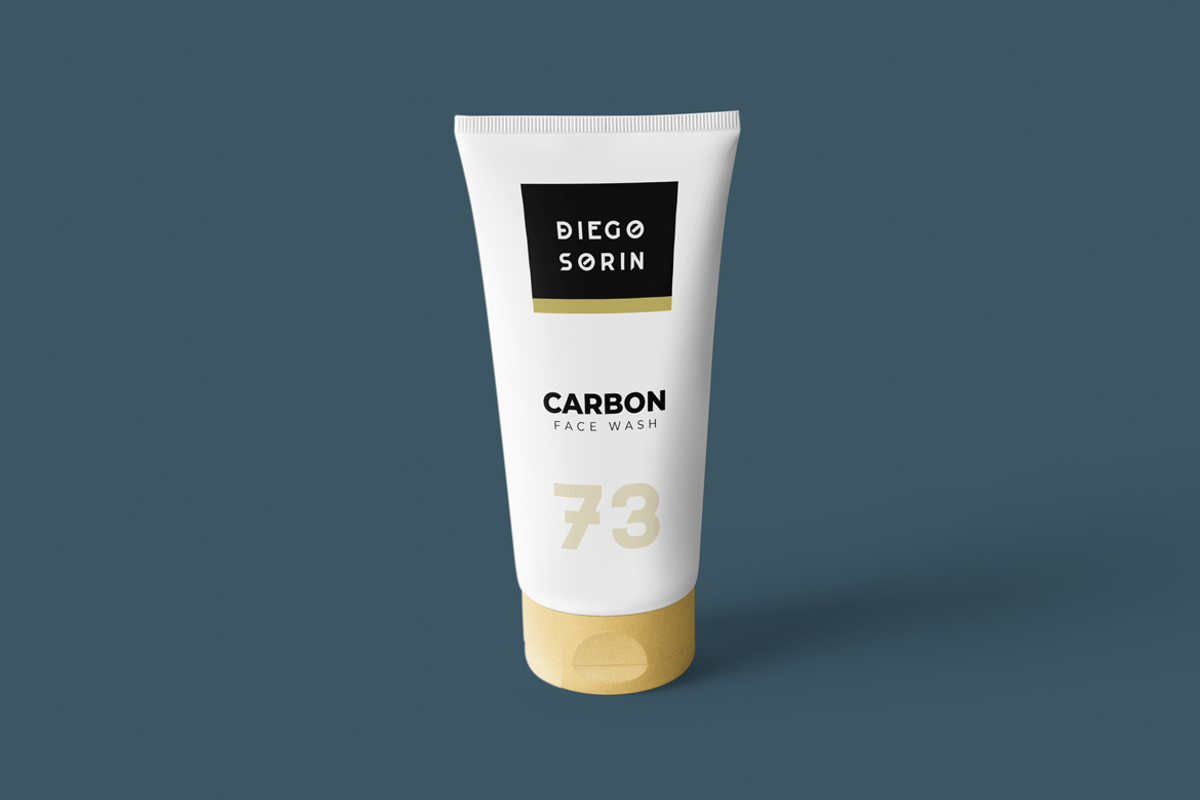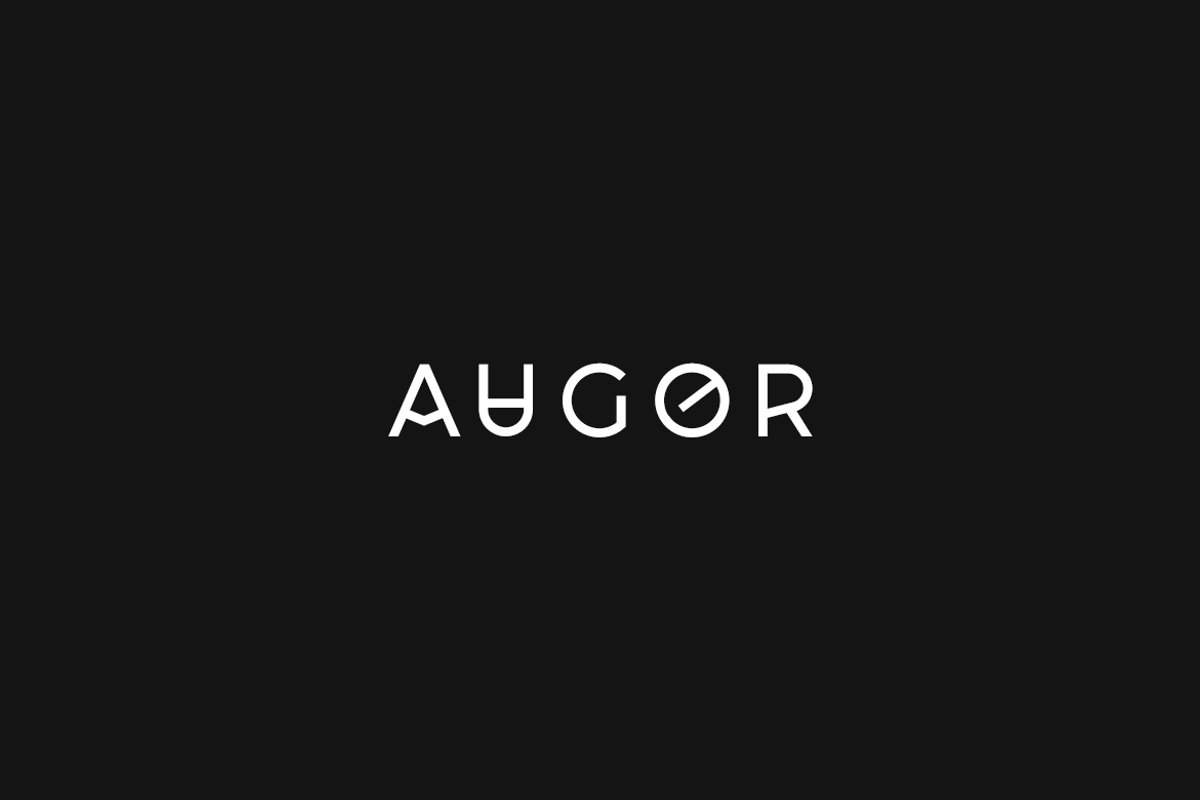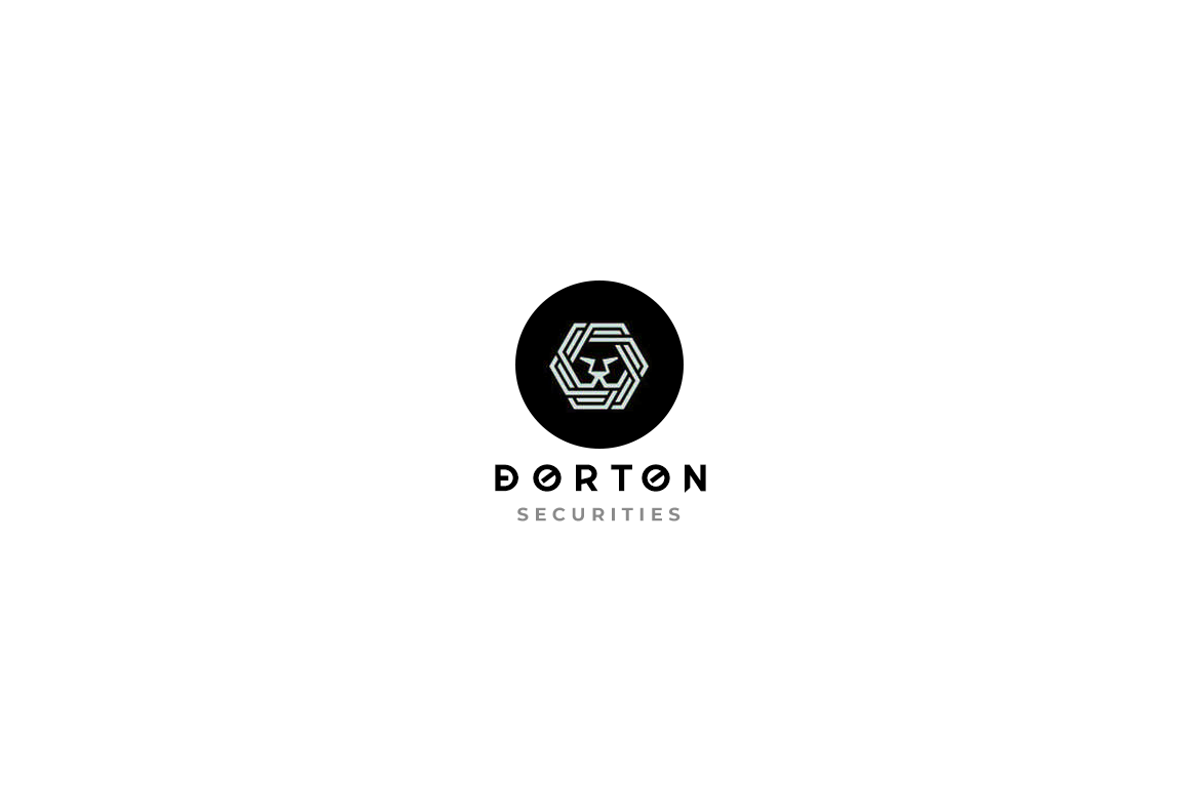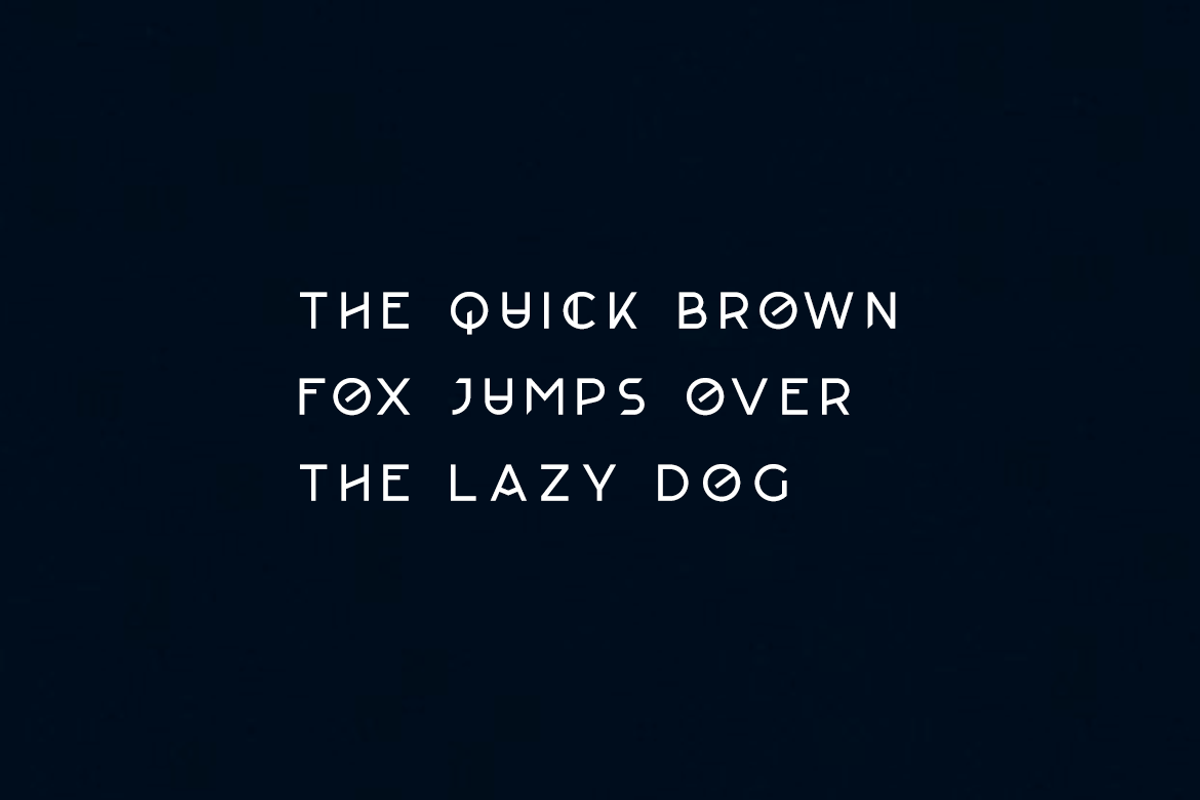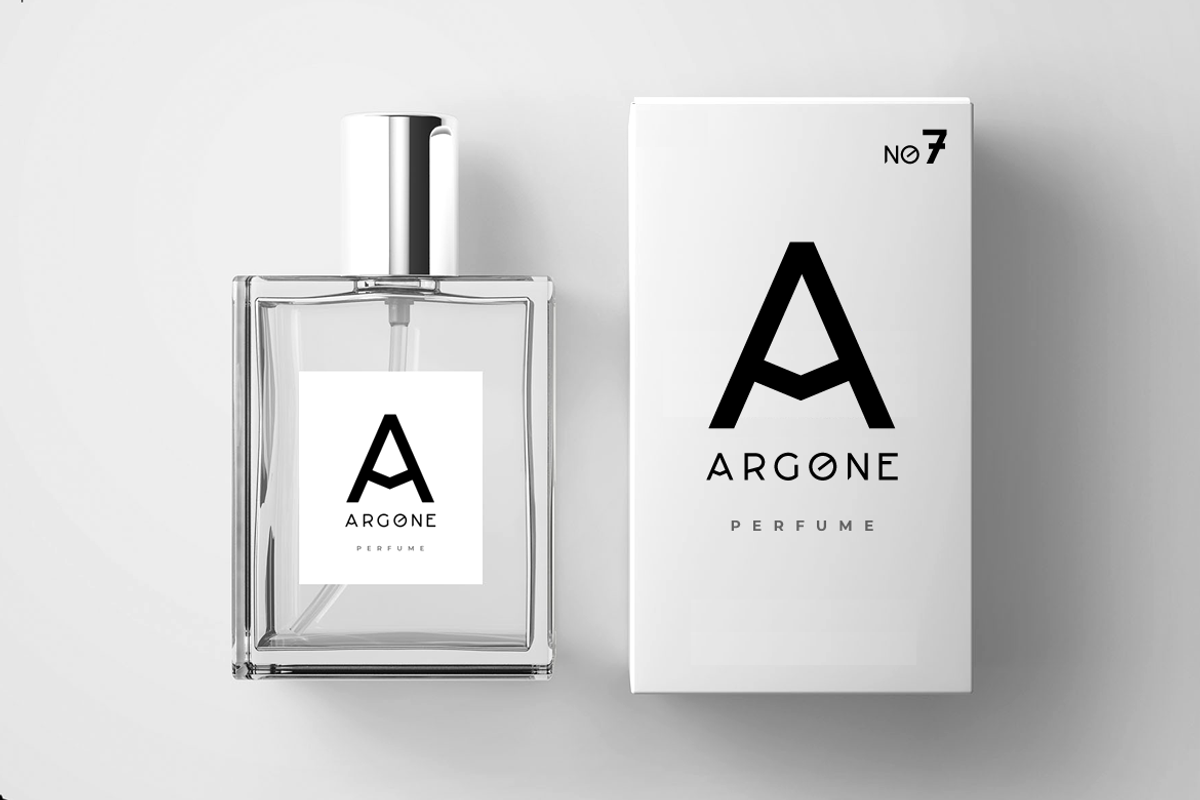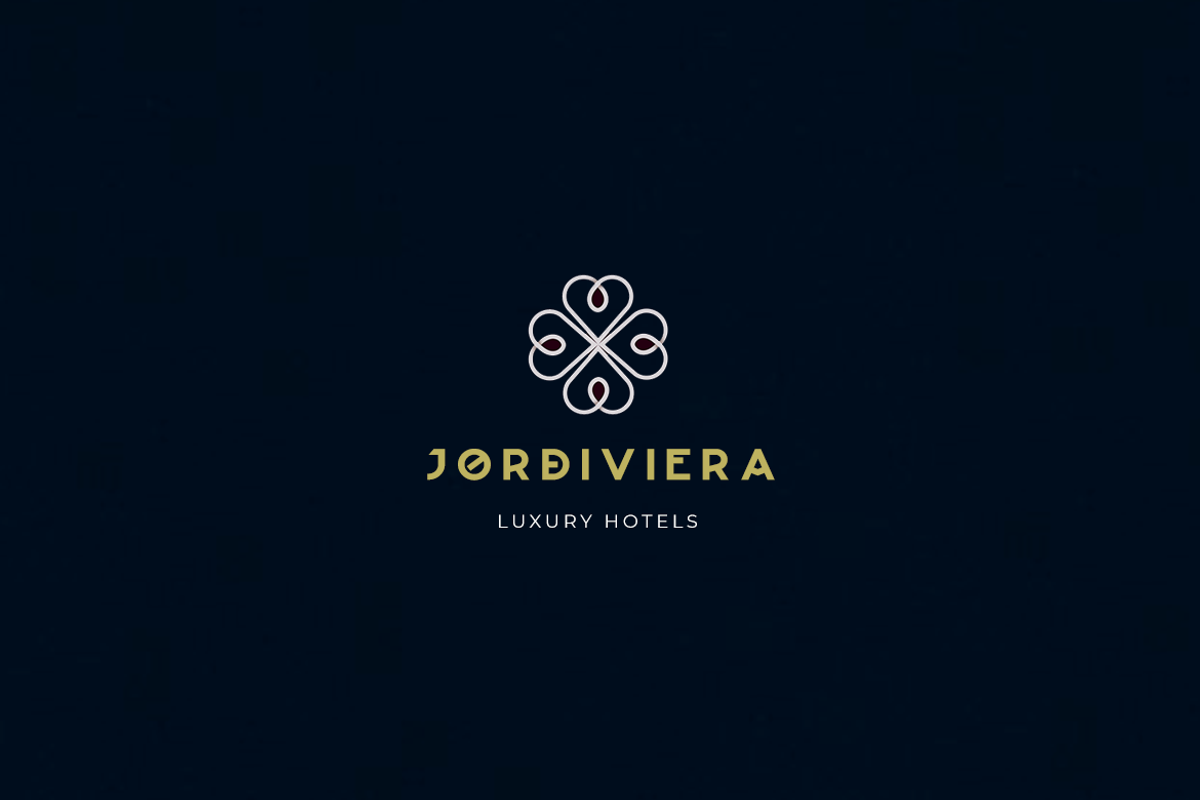
AUGOR - Unique Display Logo Typeface
A fuel for your design inspiration that can ignite your next design project, AUGOR is a truly unique all-caps display typeface particularly dedicated for display / headline / branding / logotype usage. AUGOR will be best suited for creating nicely looking logos, brand identities and headlines. Just see the demo images given above for an abstract idea about the capability of this typeface.